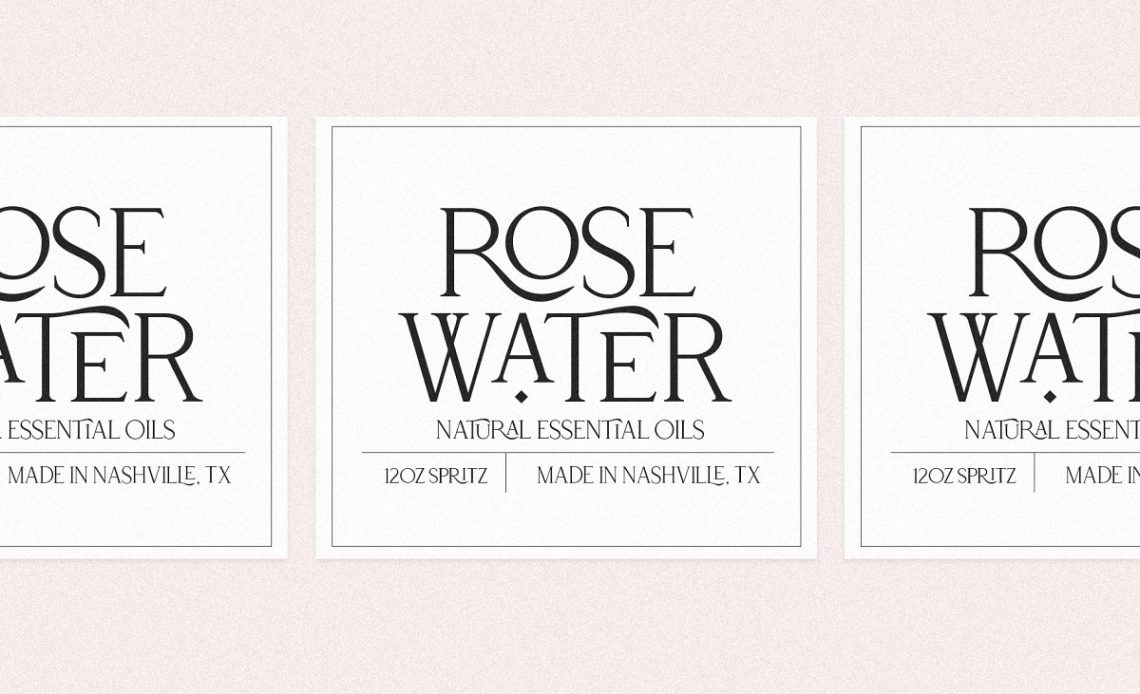
Looking for a classy serif font that will elevate your designs and catch the eye of your audience? Look no further than Tropic Waters, created by the talented Kaitlynn Albani. As the best font for book title serif, Tropic Waters is perfect for any project that requires a touch of elegance and sophistication.
But Tropic Waters is more than just a pretty face. This font is packed with chic ligatures that make it easy to create stunning logos, advertisements, headlines, social media quotes, branding and more! It's a serif font that brings together timeless letterforms with modern ligatures, creating a unique and captivating visual experience.
To take full advantage of Tropic Waters, you will need to use a design program that supports opentype features, such as Photoshop and Illustrator. With these features enabled, the font will change and interlock as you type, adding an extra layer of beauty to your designs. And even without using the interlocking pairs, Tropic Waters is a clean, chic serif that will bring a lot of interest to your projects.
Accessing the diamond letters is also a breeze – simply type in lowercase (a, e, i, o, u) and you're ready to go. And if you're using a program such as Design Space, Inkscape, or Silhouette Studio, you can easily access the ligatures built into this font using your character map or font book.